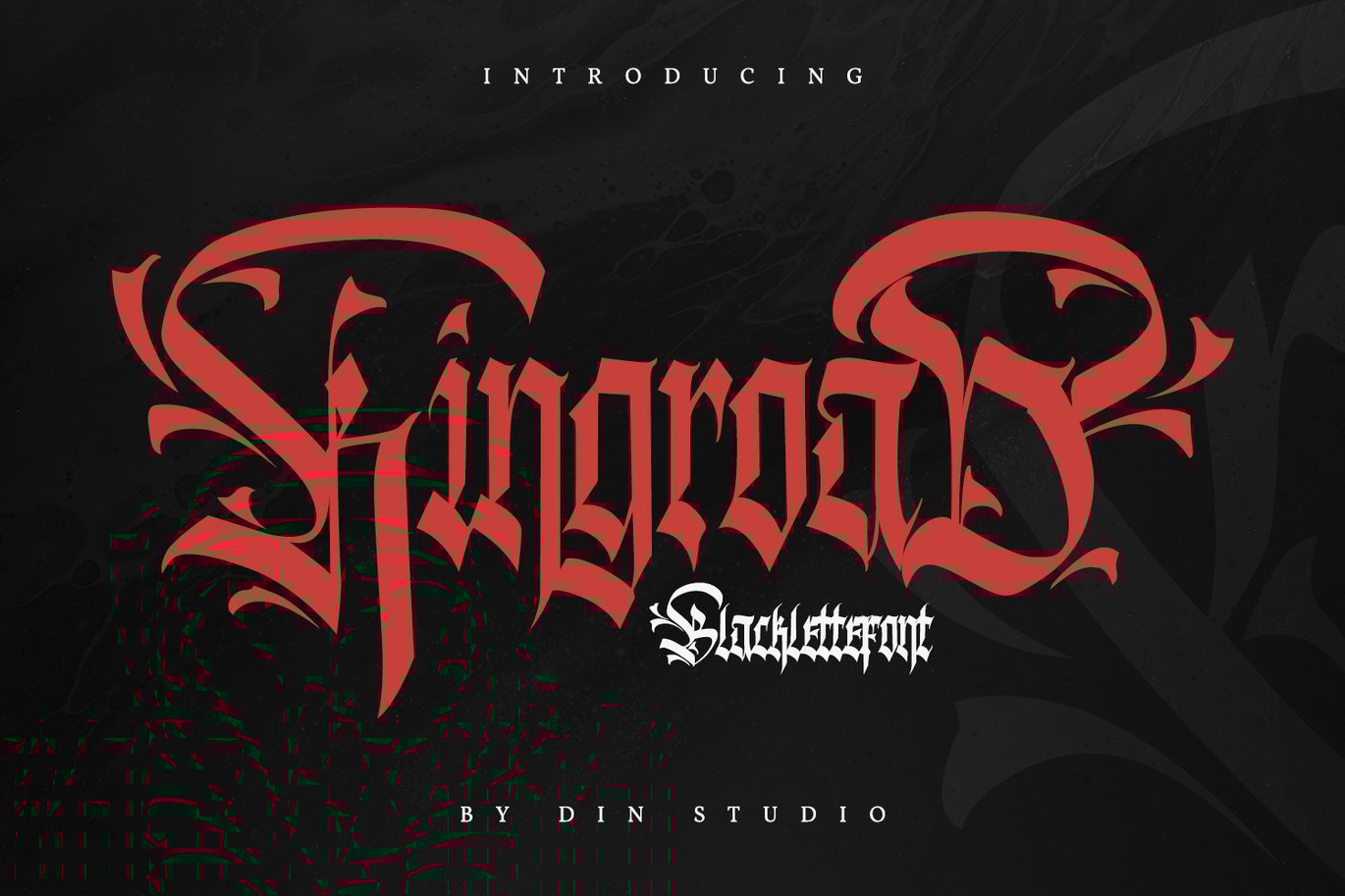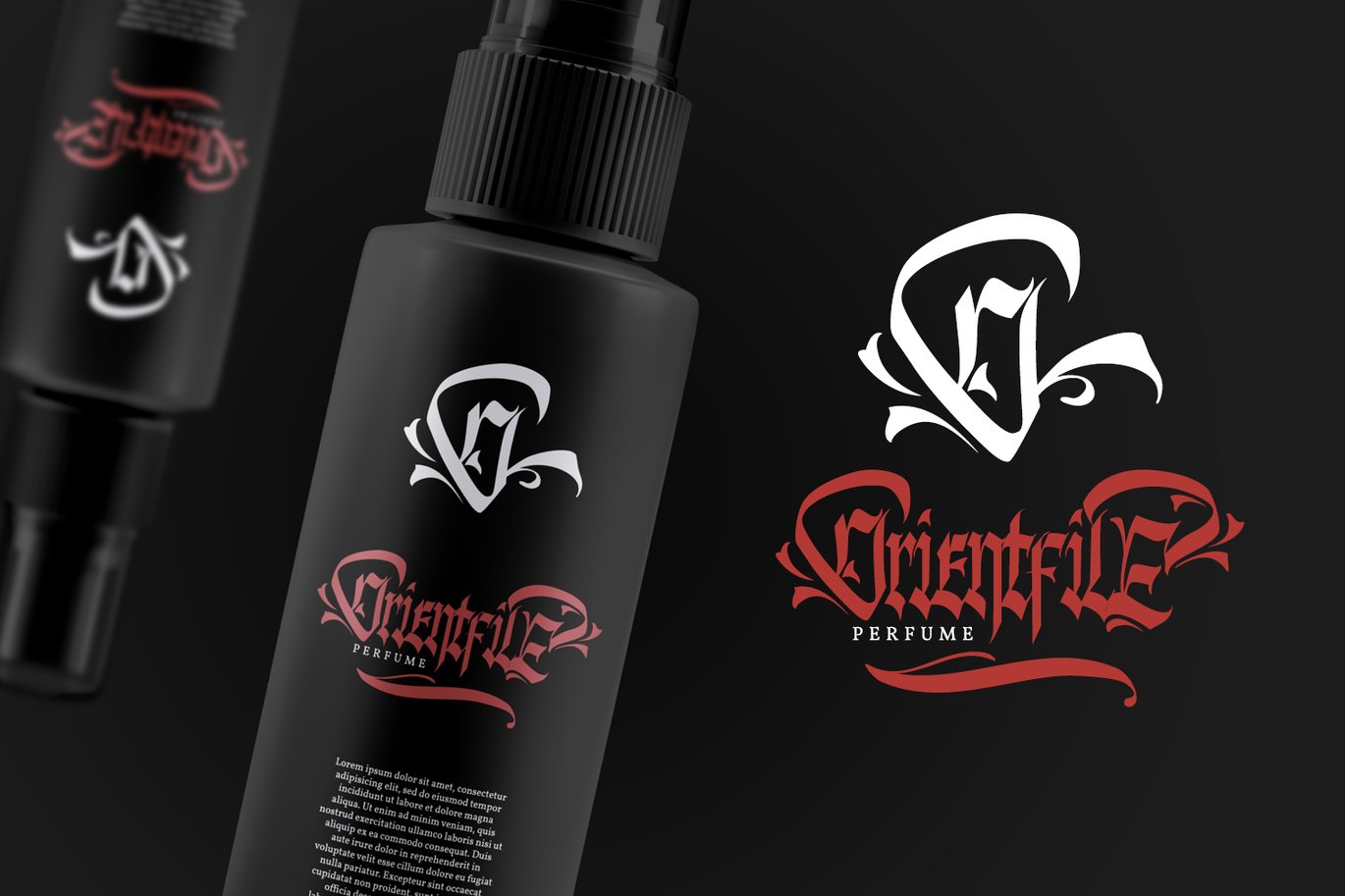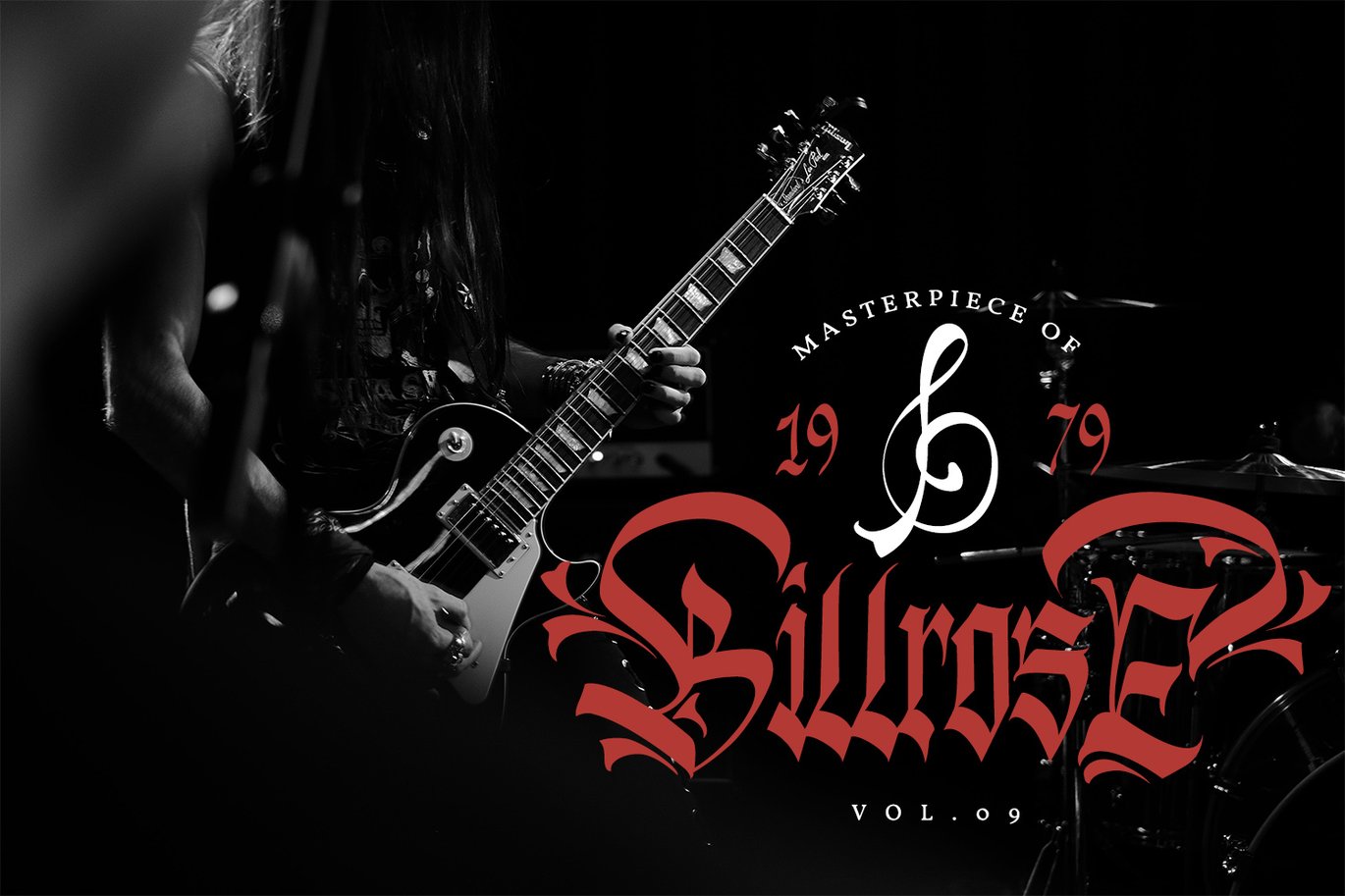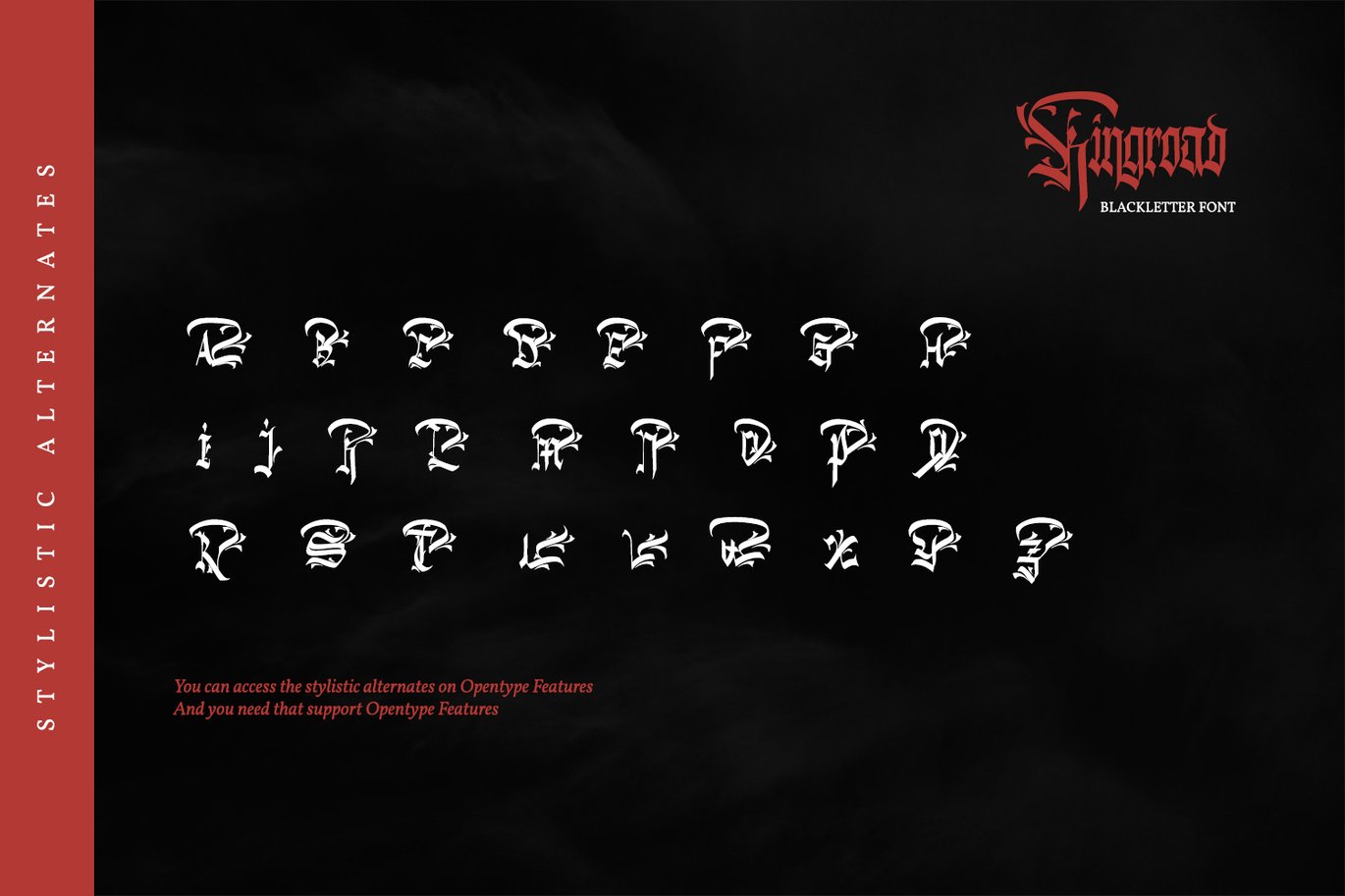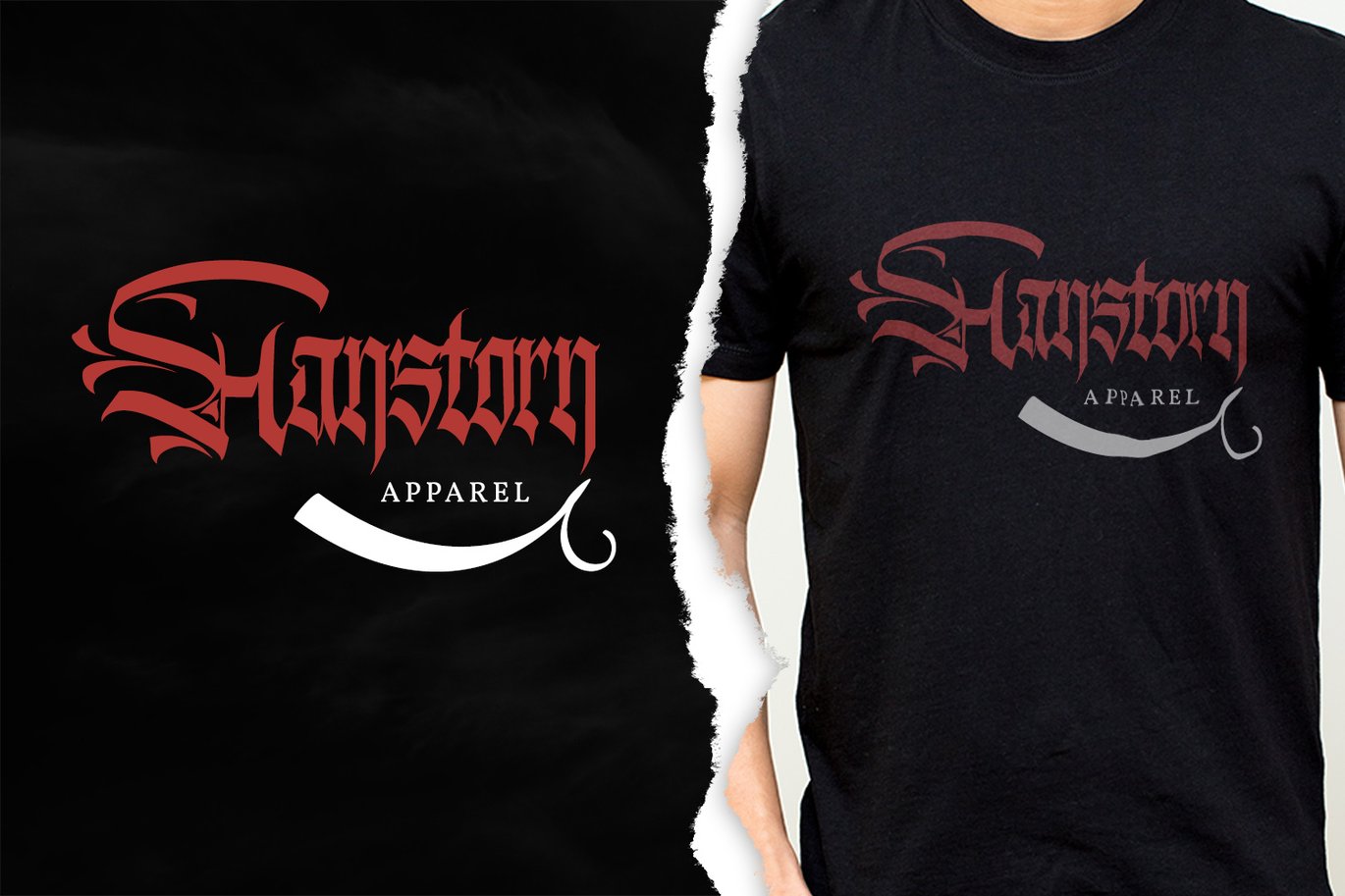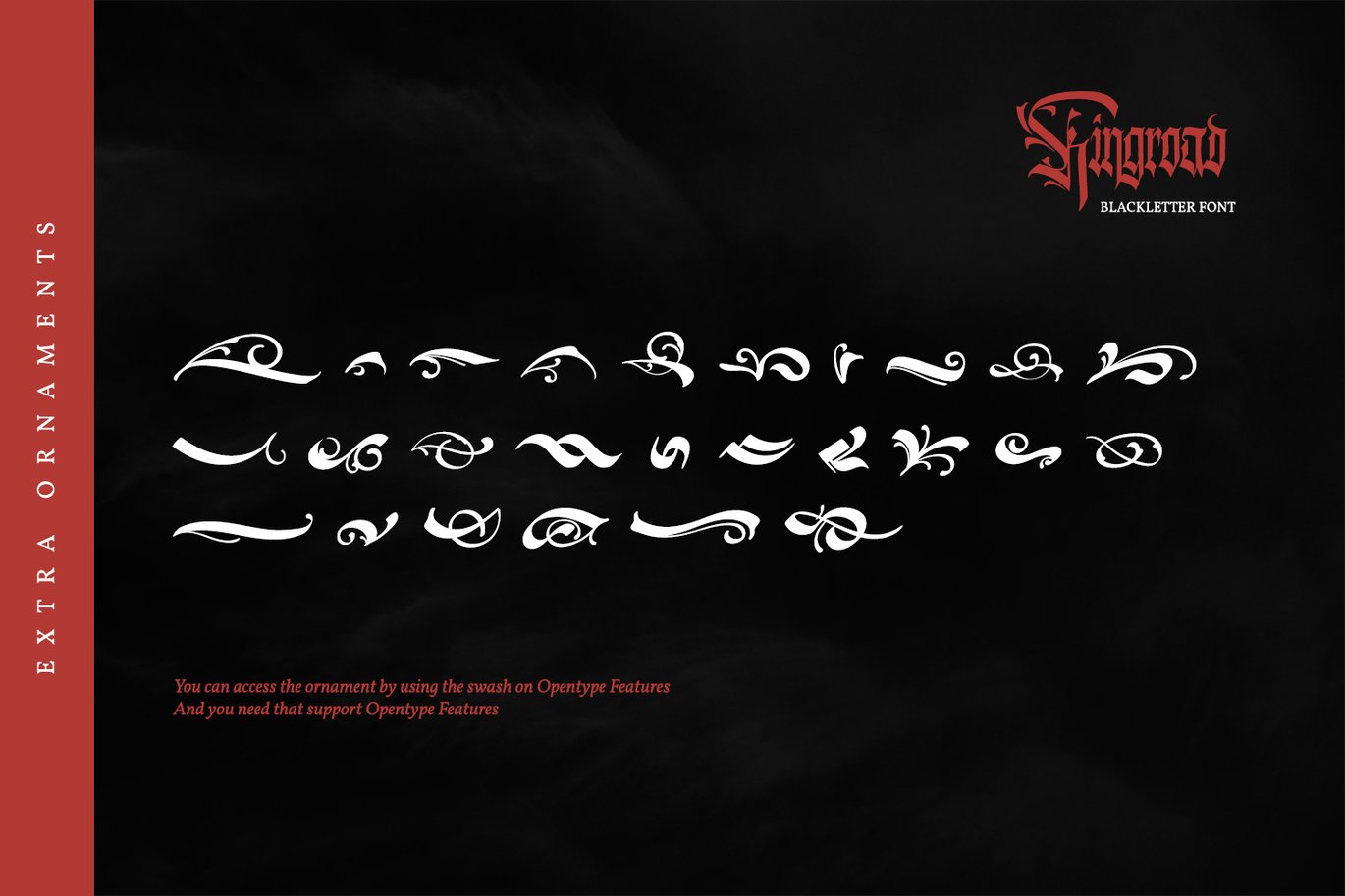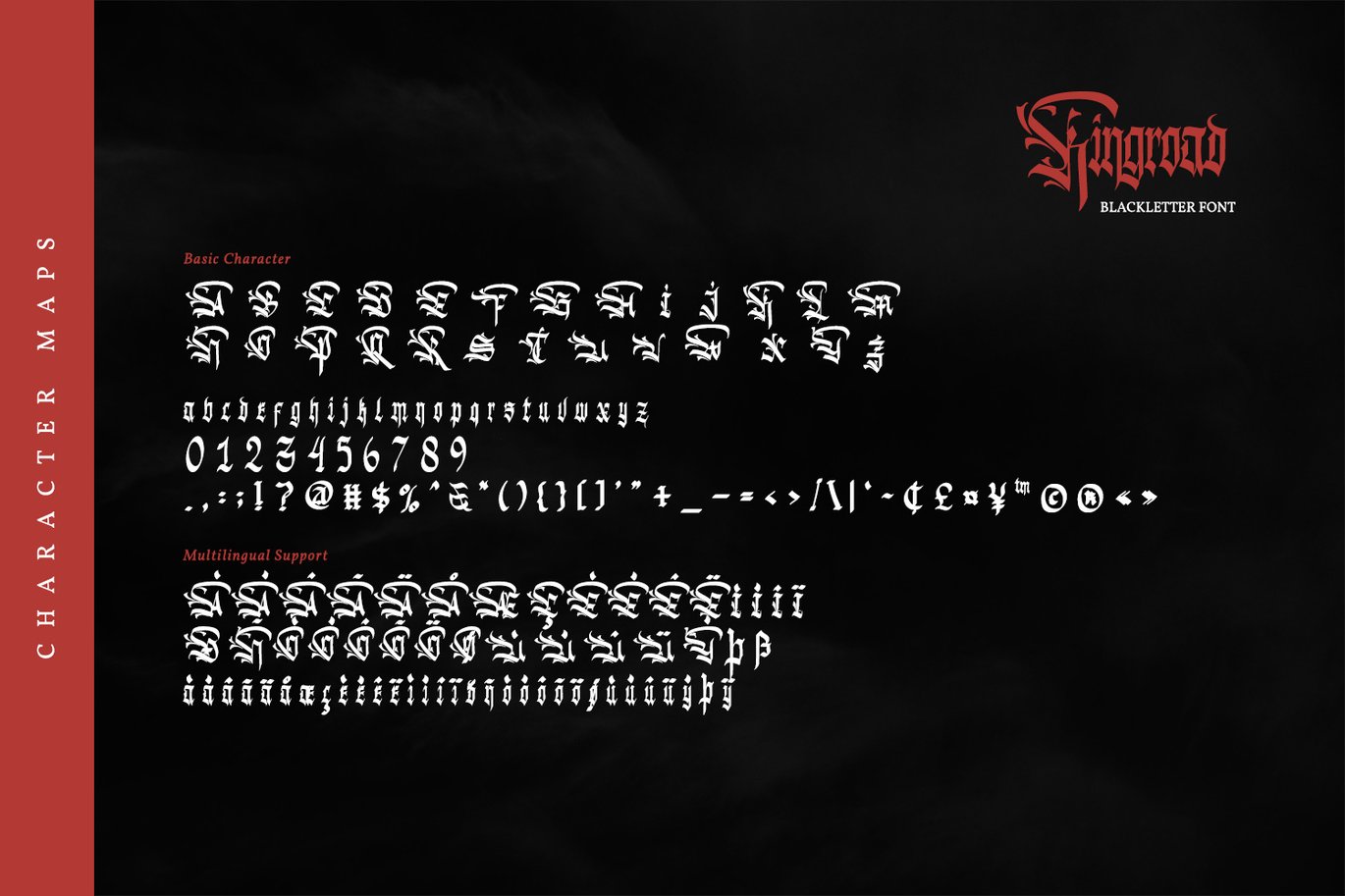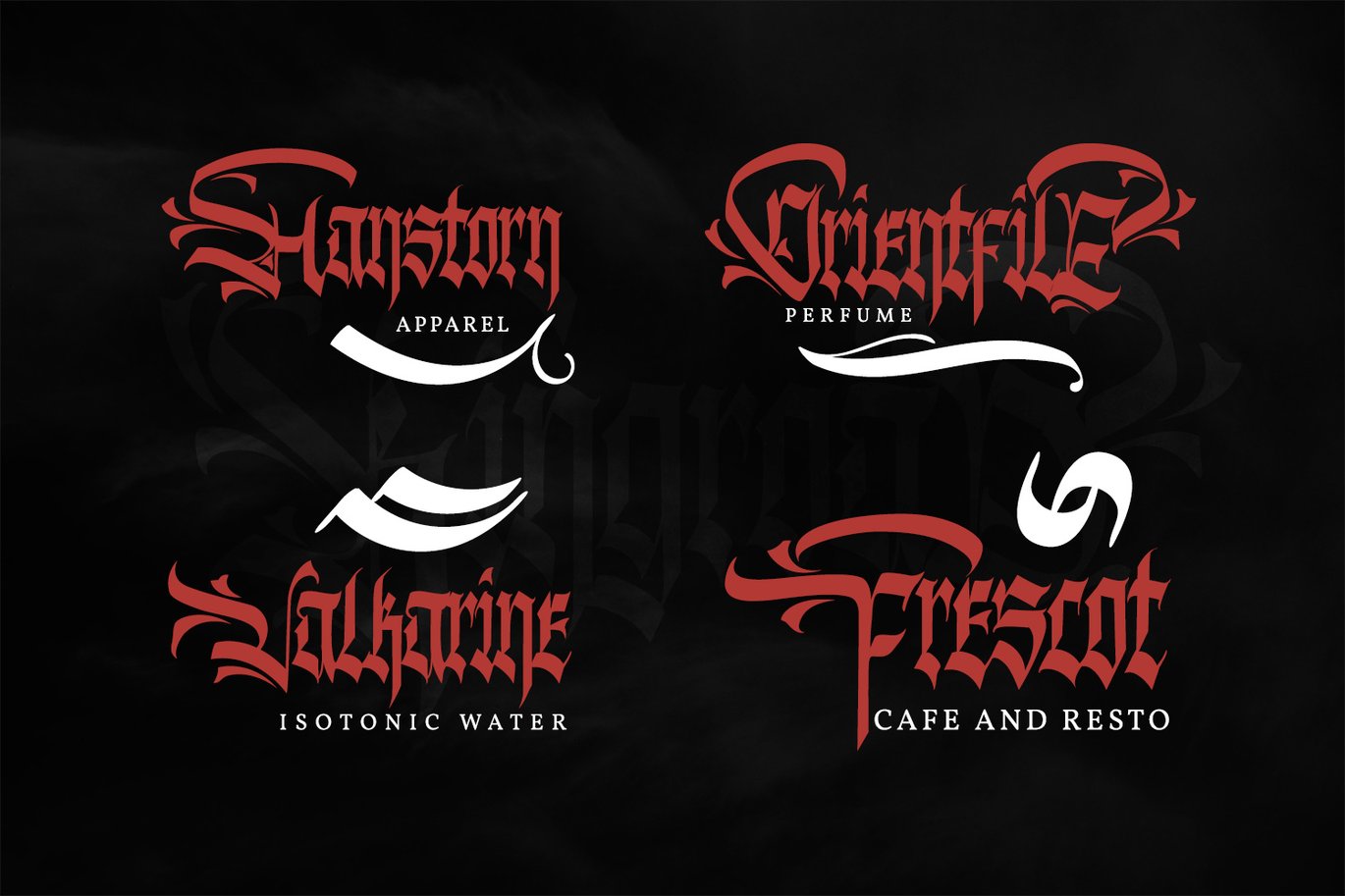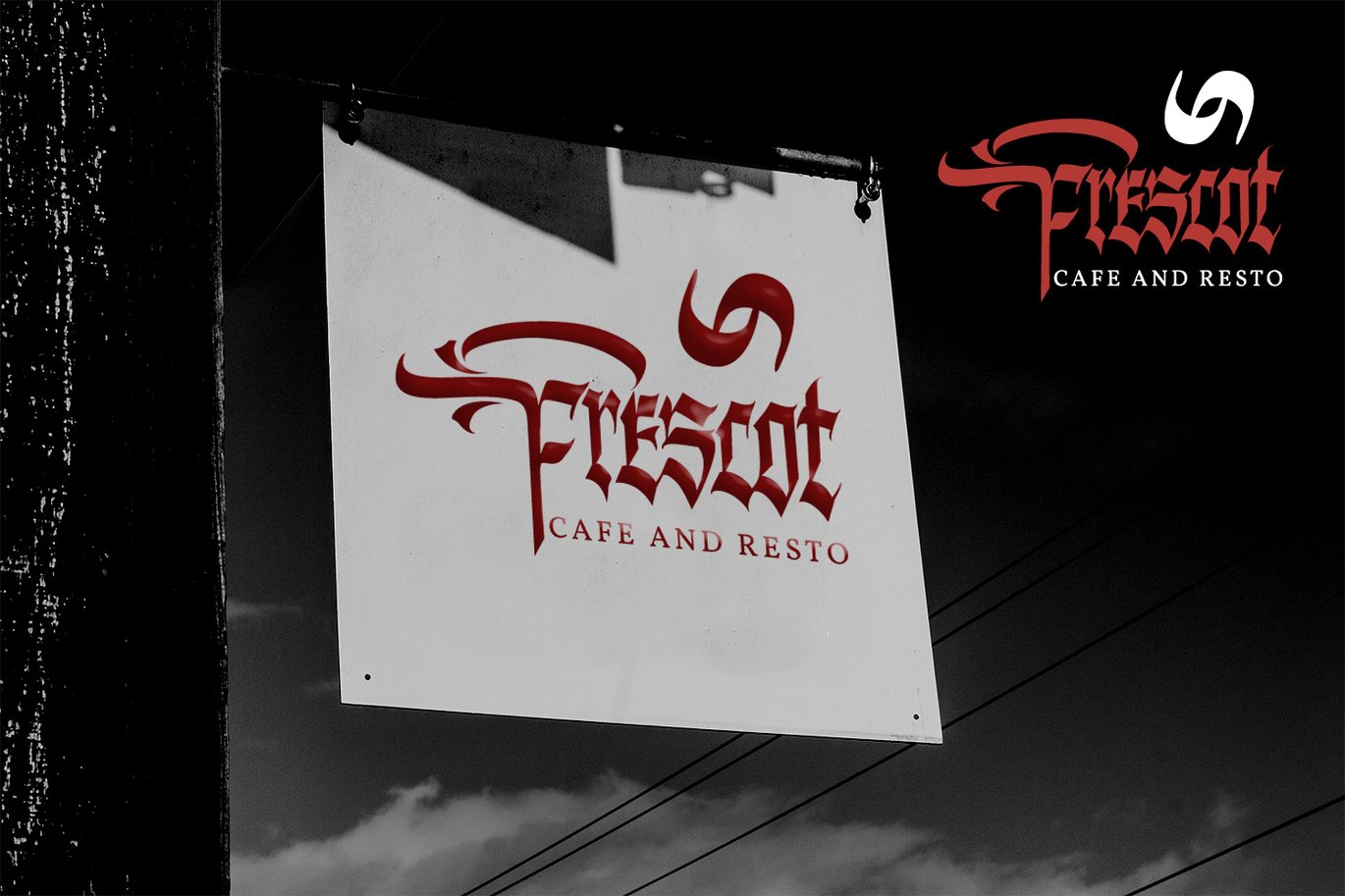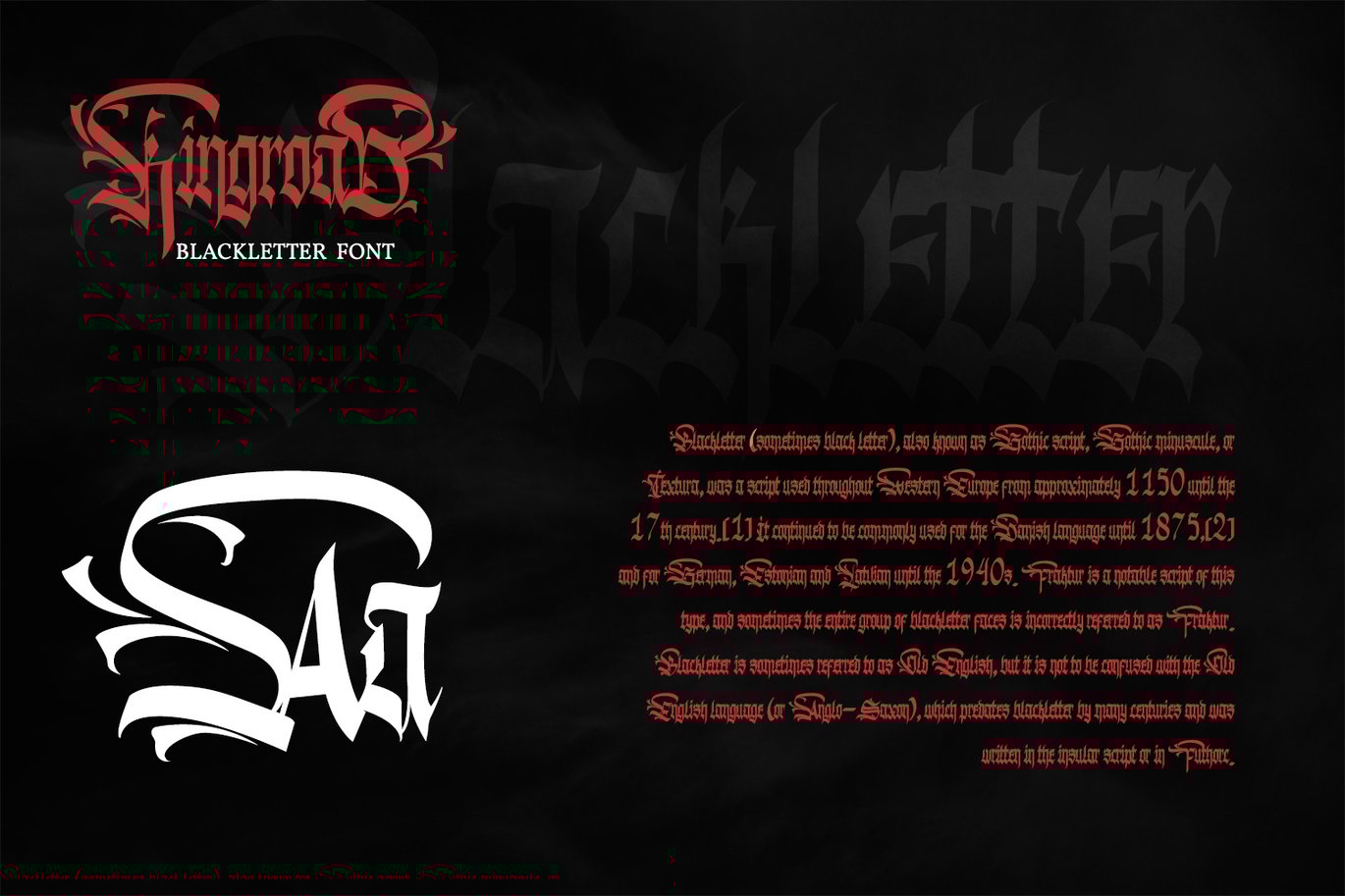
Kingroad-Blackletter Font
Kingroad is authentic and modern blackletter font. The font is suitable for any branding project like logo, t-shirt printing and many more. Outstanding in a wide range of contexts.
- Accents (Multilingual characters)
- Extra Ornaments